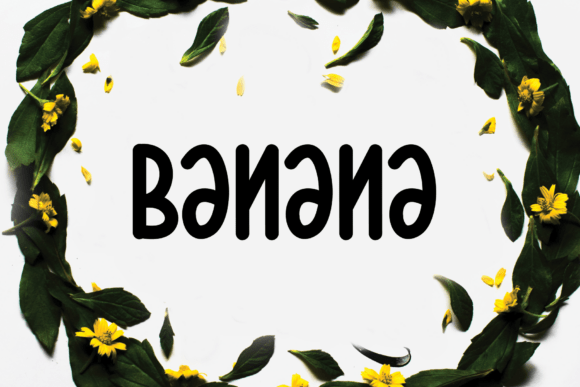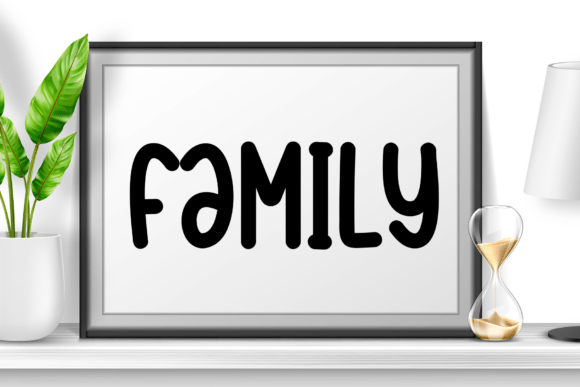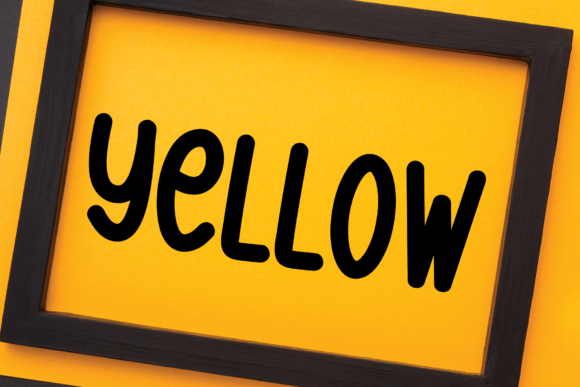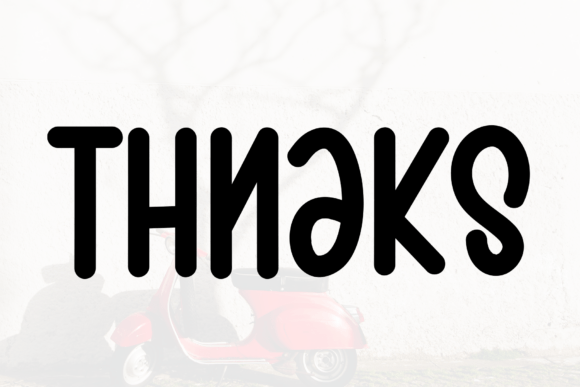
Introduction to Haunted Mansions Font
Add a touch of whimsical mystery to your designs with Haunted Mansions, a display style font that perfectly balances spooky inspiration with playful energy.
This typeface features bold, rounded letterforms with a unique “bouncy” baseline, giving your text a rhythmic and lively personality Its thick monoline strokes and clean terminals ensure excellent legibility while maintaining a handcrafted feel.